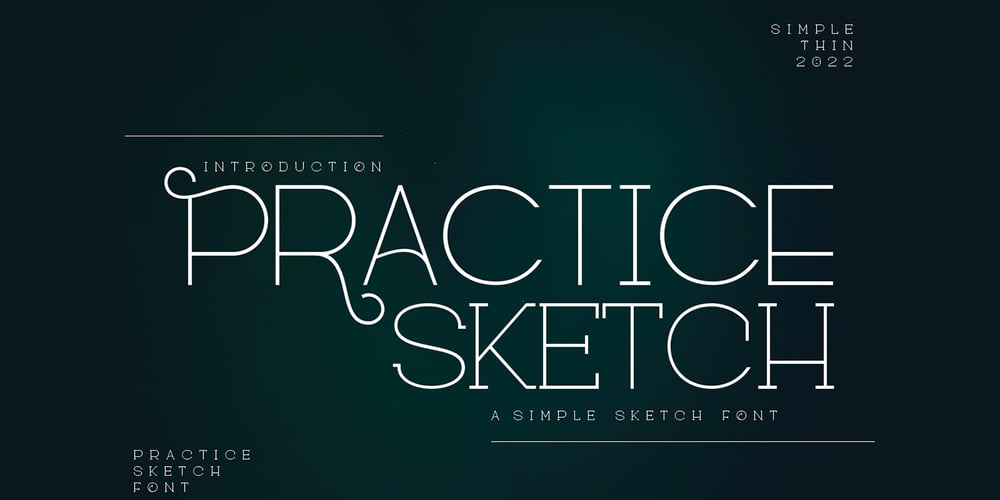
Practice Sketch Font Family was designed by Ibram Syah and published by Jehansyah. Practice Sketch contains 2 styles and family package options. Practice Sketch This sketch font is perfect for your needs to look elegant and dignified, a luxurious impression will be seen when you use it, aesthetic and modern, very suitable for types of designs that want to look stylish.Thank you very much